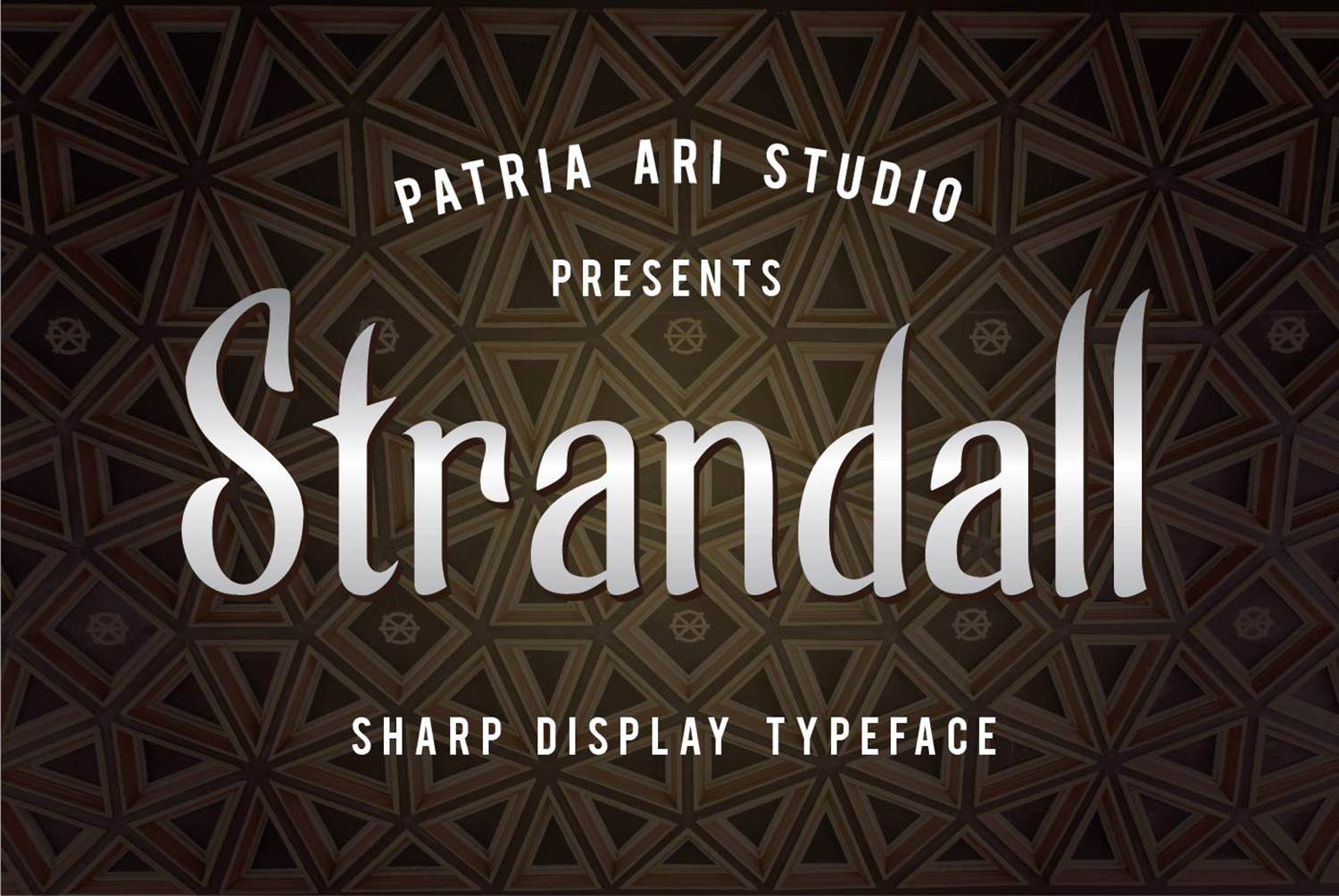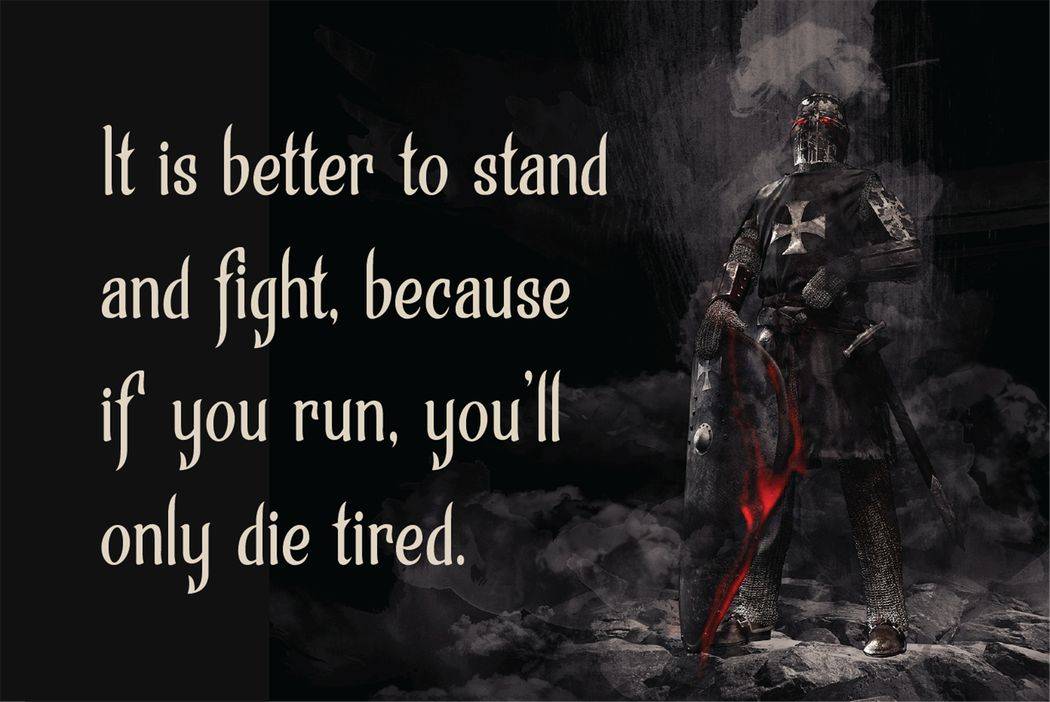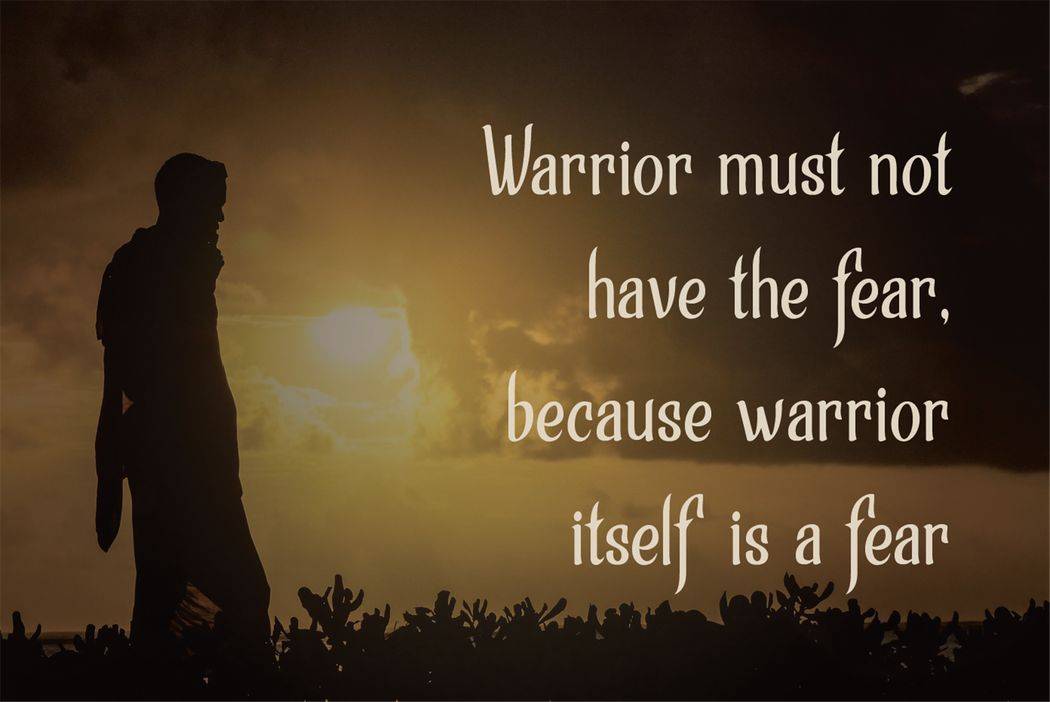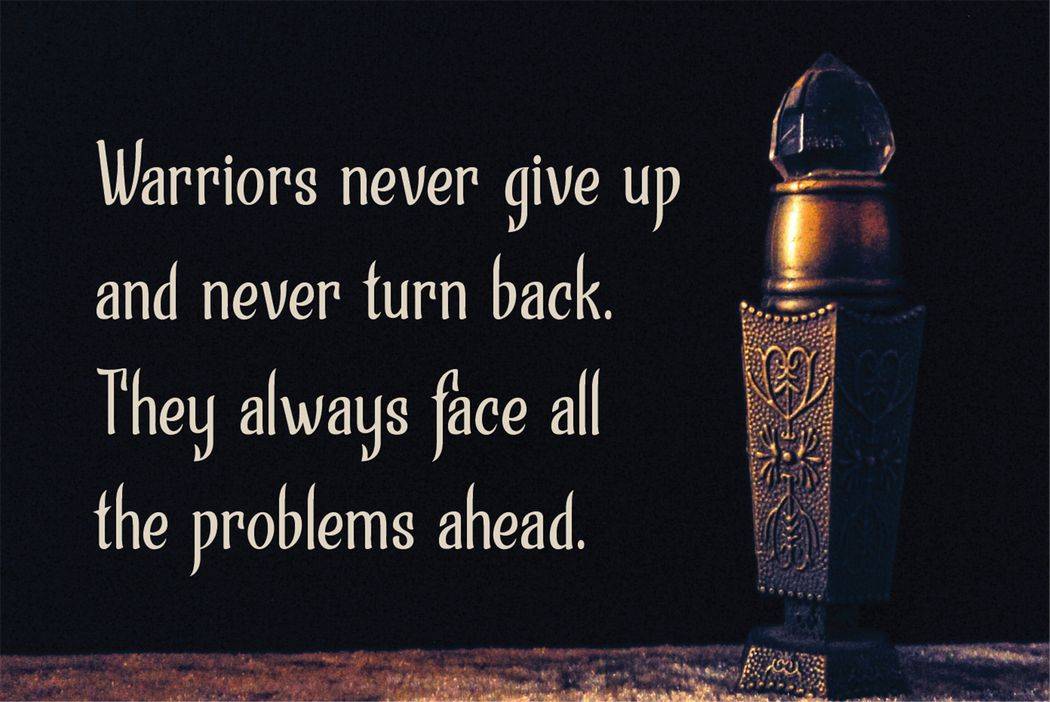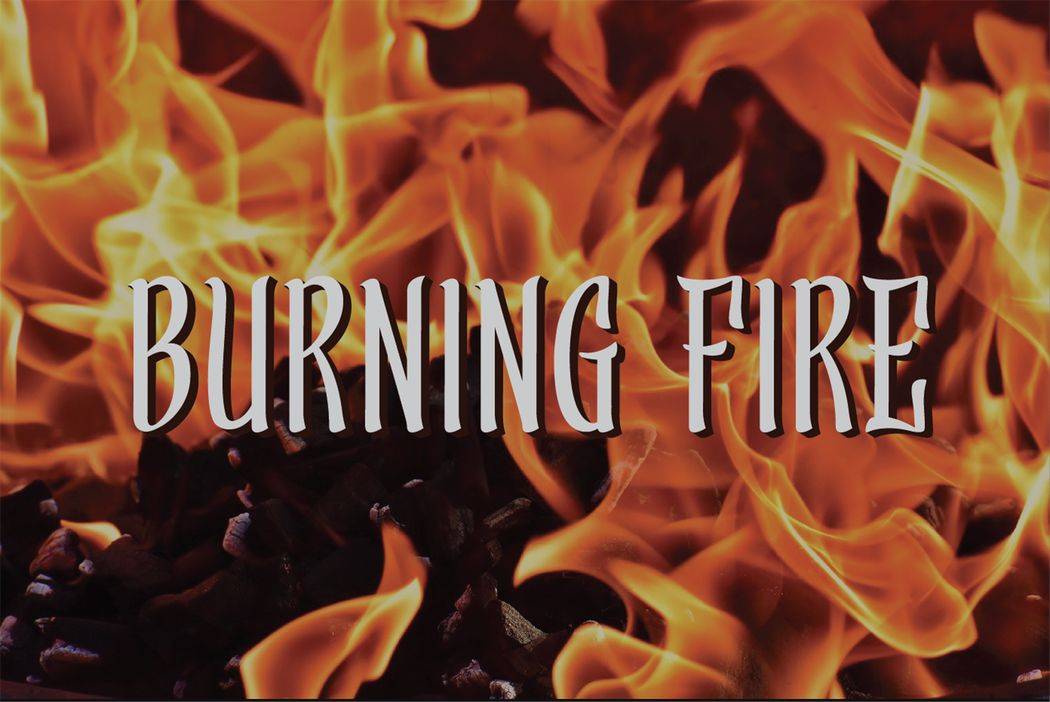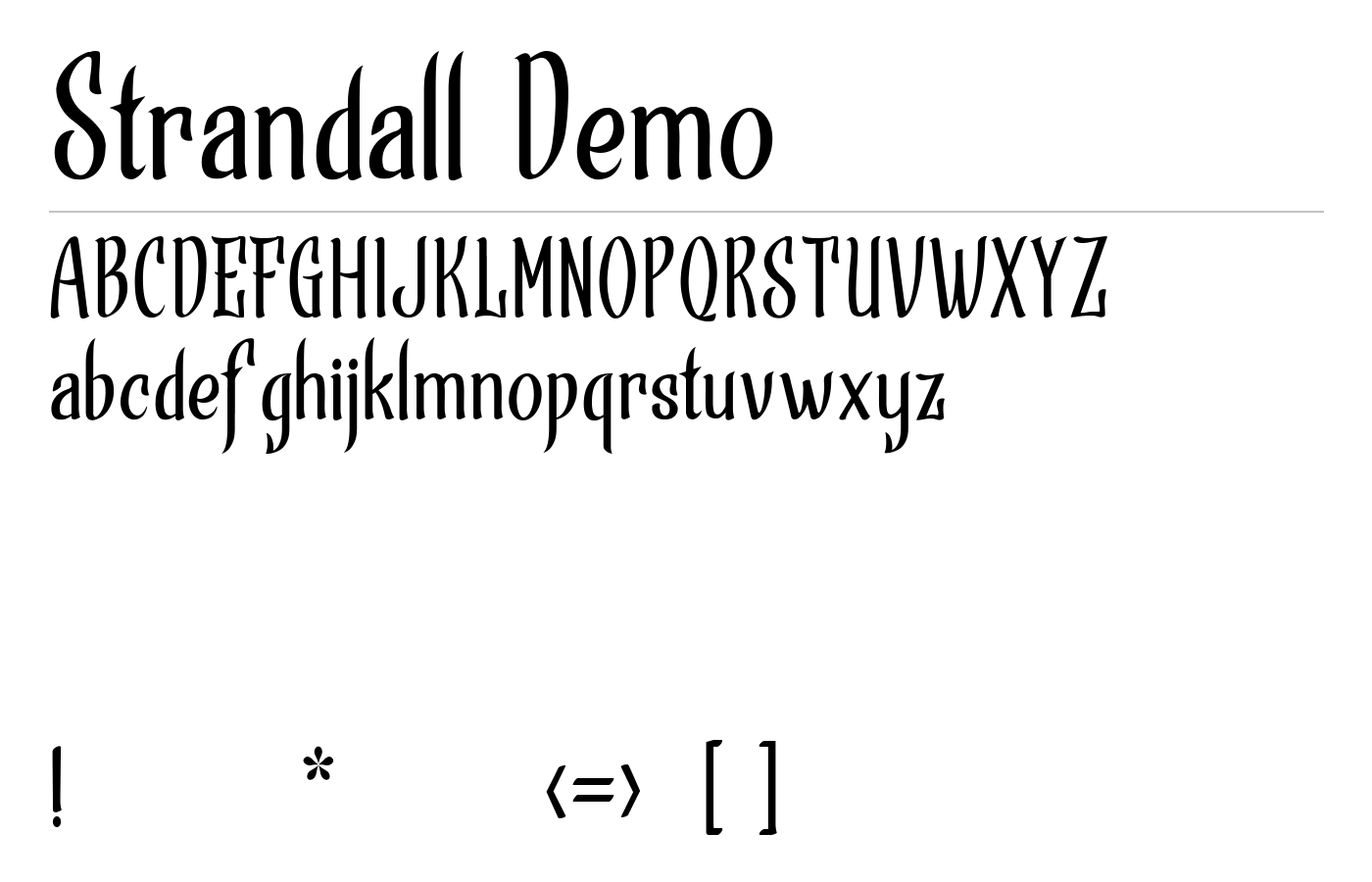
Strandall is a distinctive serif font with a narrow, tall structure and elegant stroke contrast that gives it a refined yet quirky personality. Its lightly calligraphic, slightly uneven letterforms add a hand-crafted charm, making it ideal for creative branding, vintage-inspired designs, and headlines that need a unique, artistic touch. This font works well in projects that want to combine sophistication with a playful, memorable style.
Strandall Font
About Strandall Font
| Font family | Strandall Font |
| Designer | Patria Ari Wijonarko |